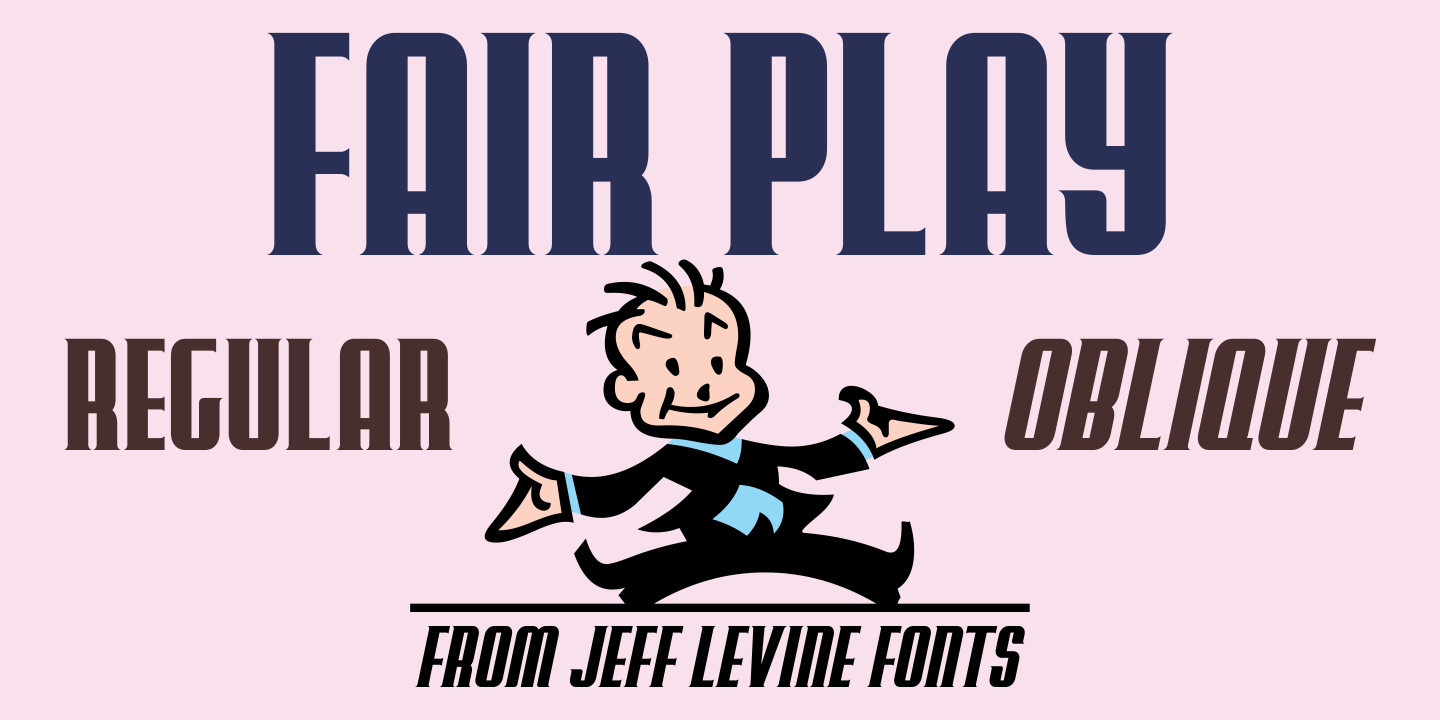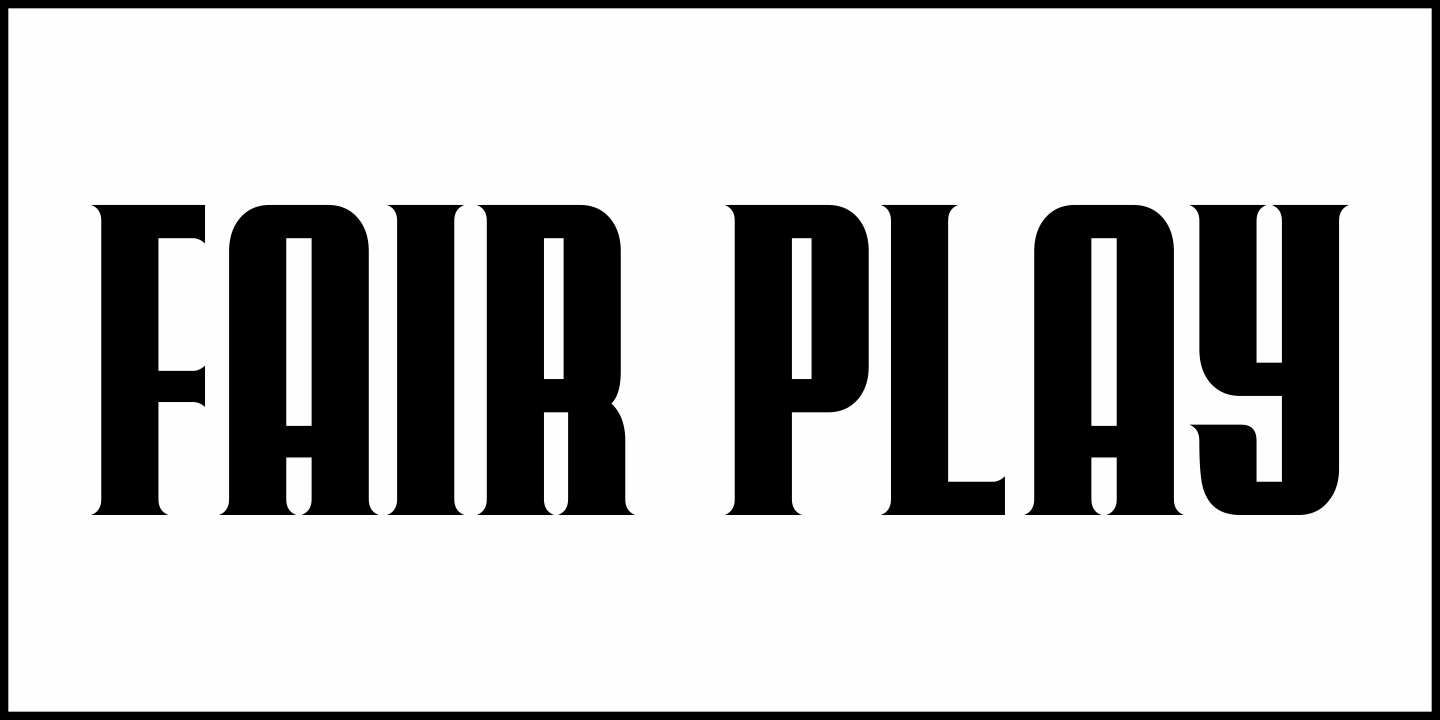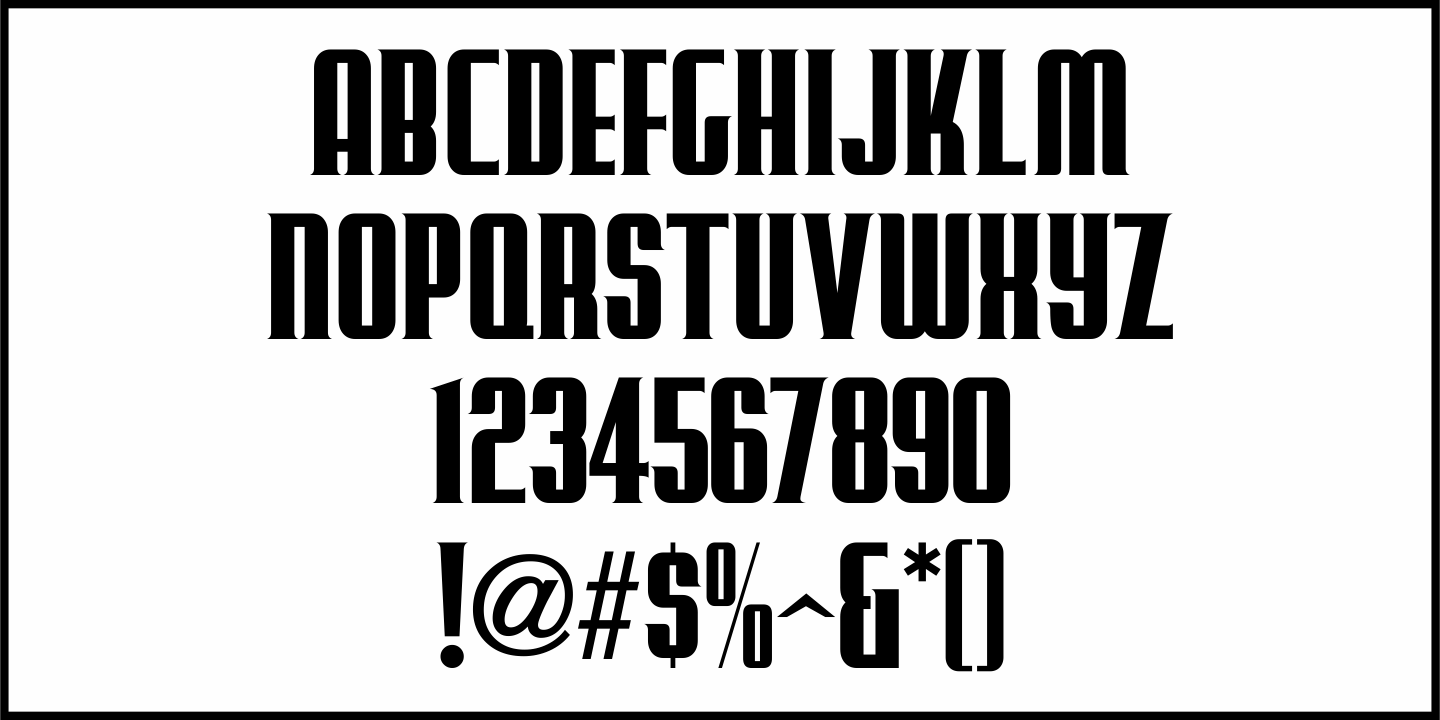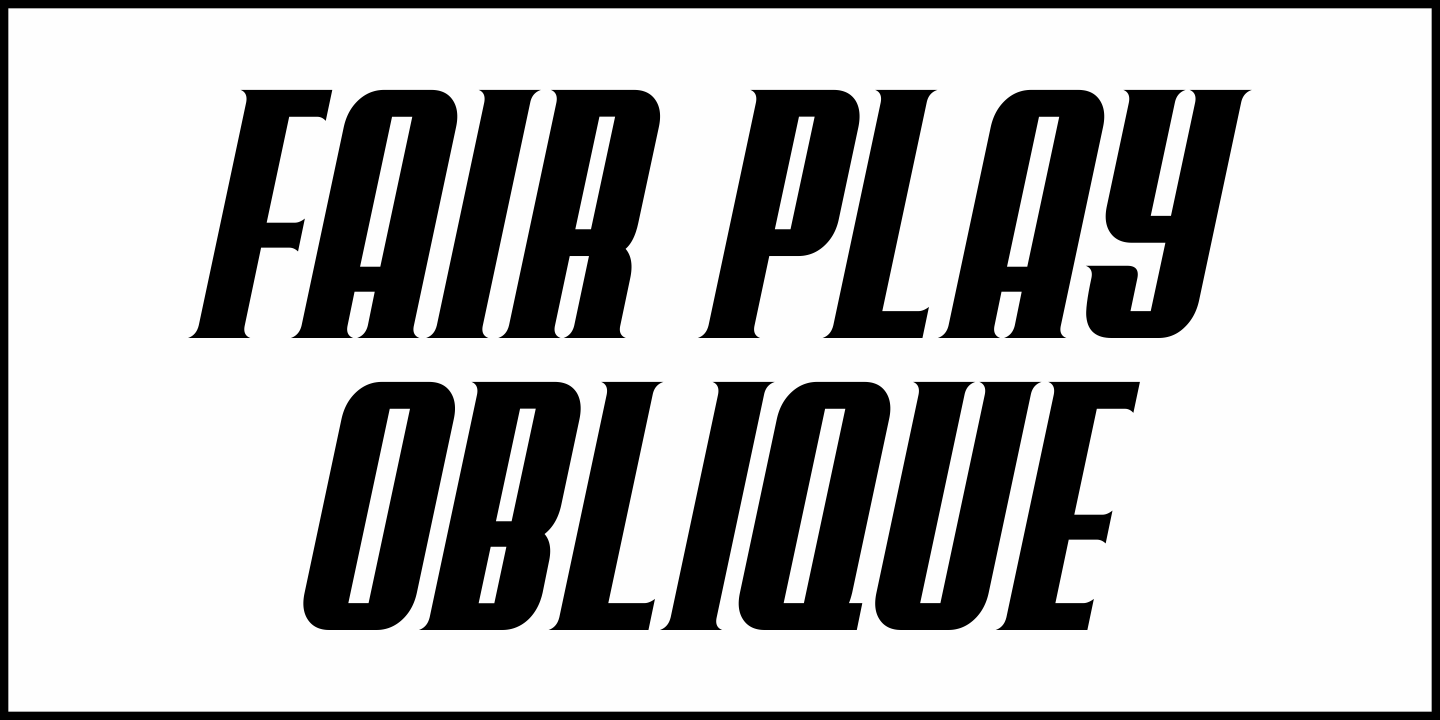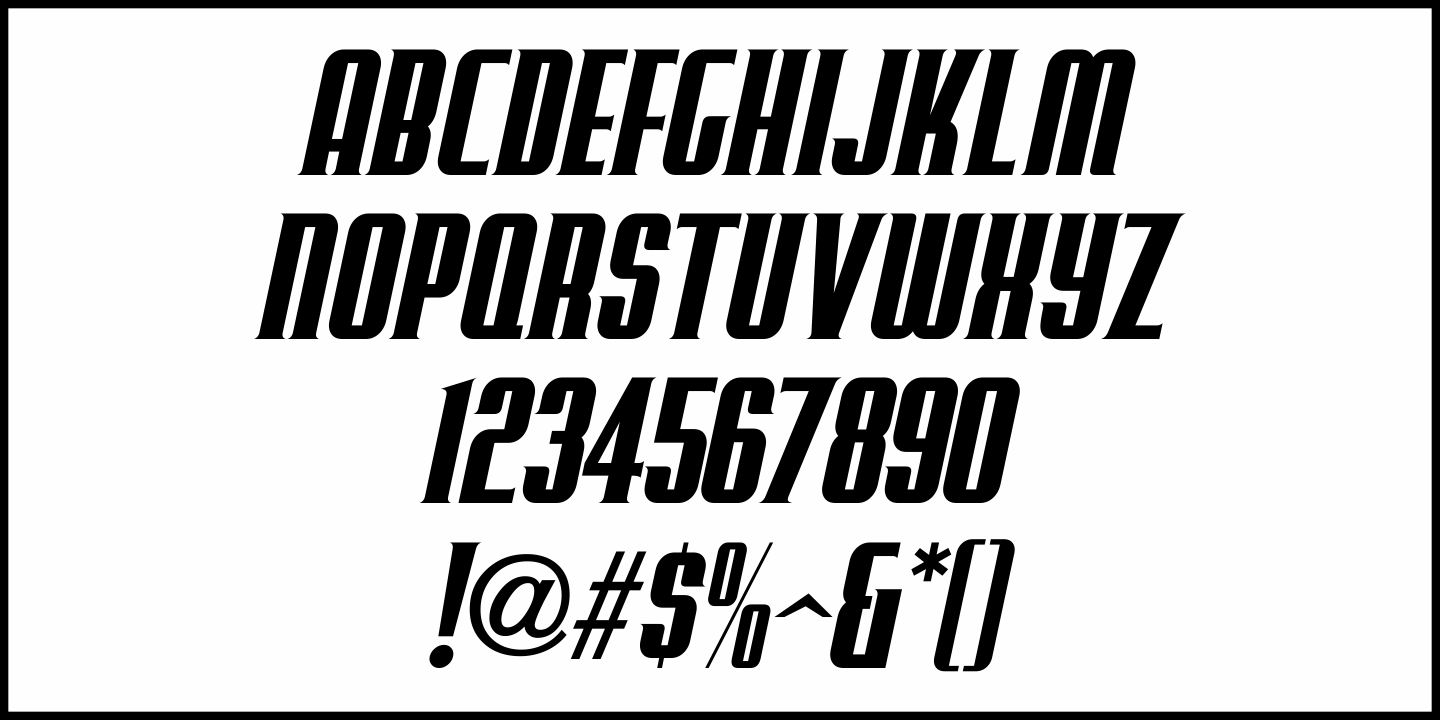
Fair Play
Inspired by hand lettering on a 1939 World’s Fair Poster, Fair Play JNL is a bold, condensed design with spurred serifs and some flared characters… and is available in both regular and oblique versions.
Fair Play JNL Regular by Jeff Levine Fonts